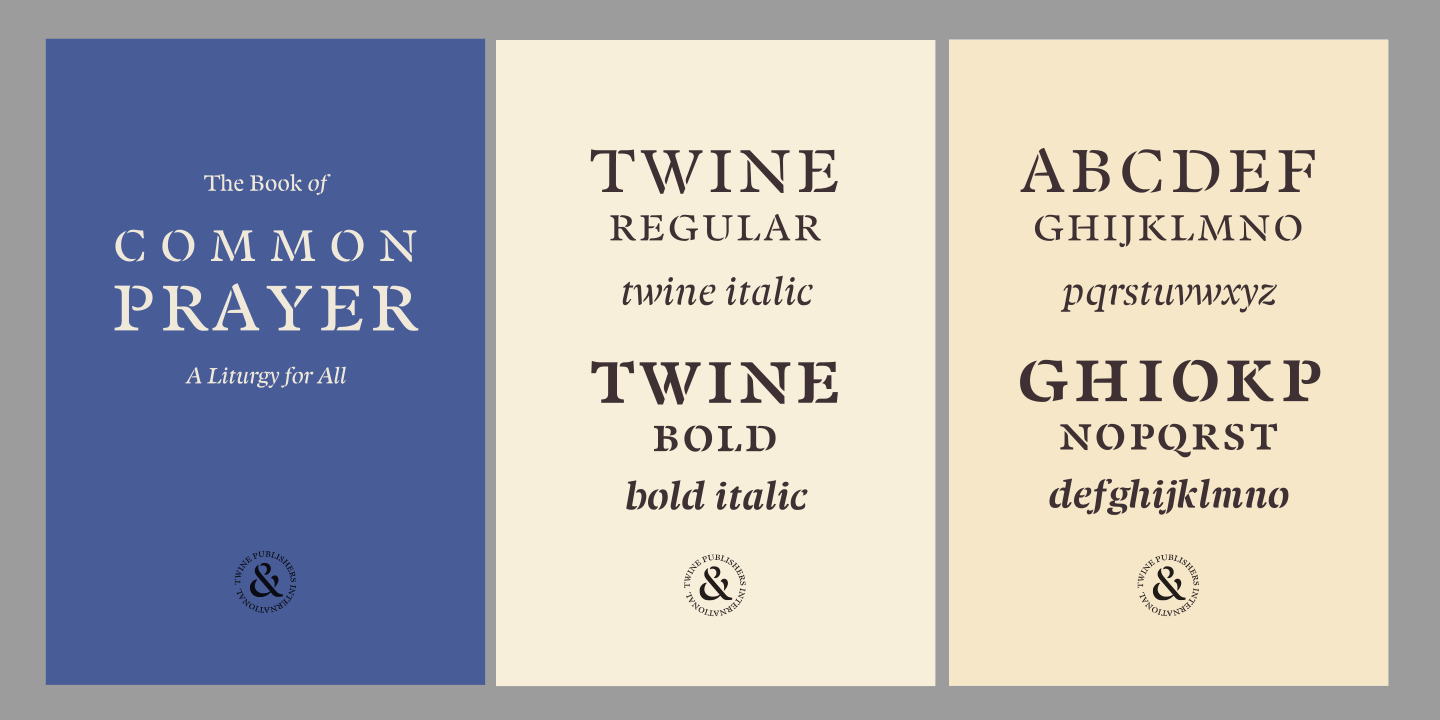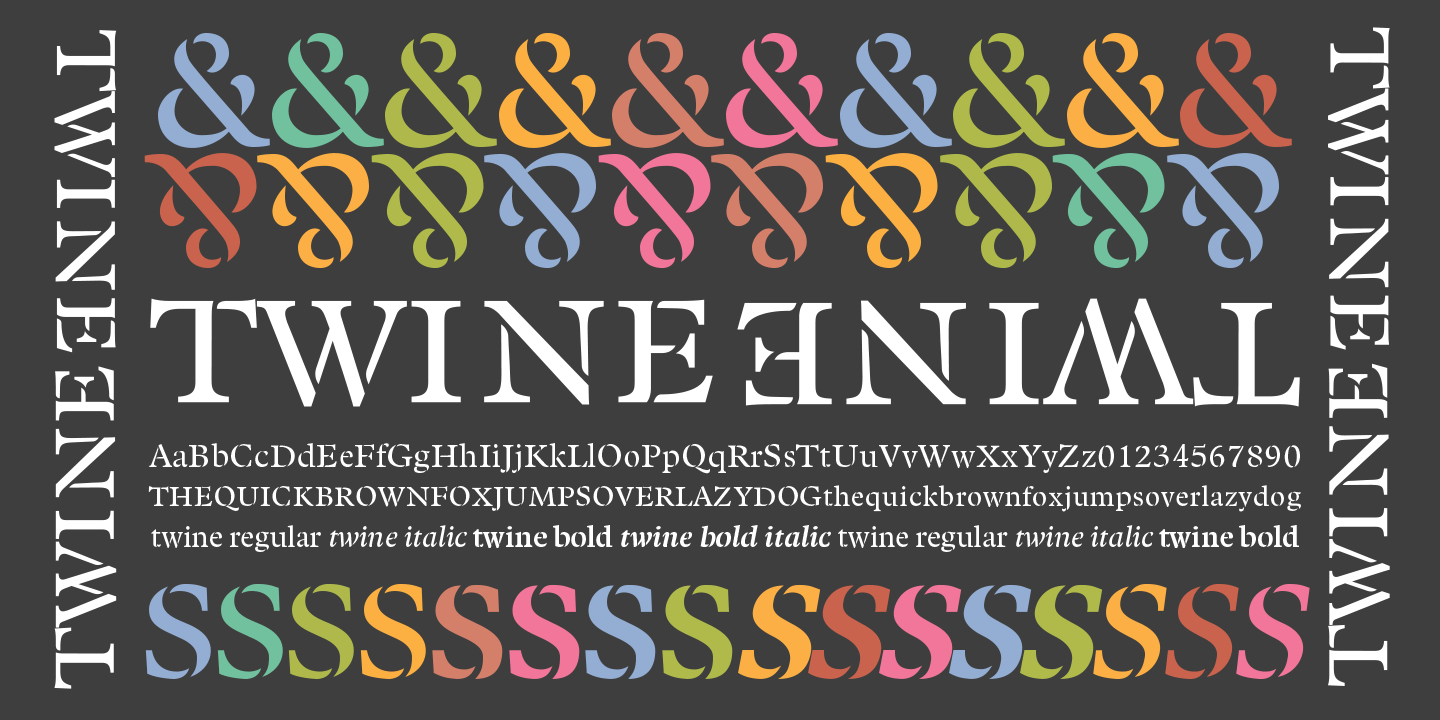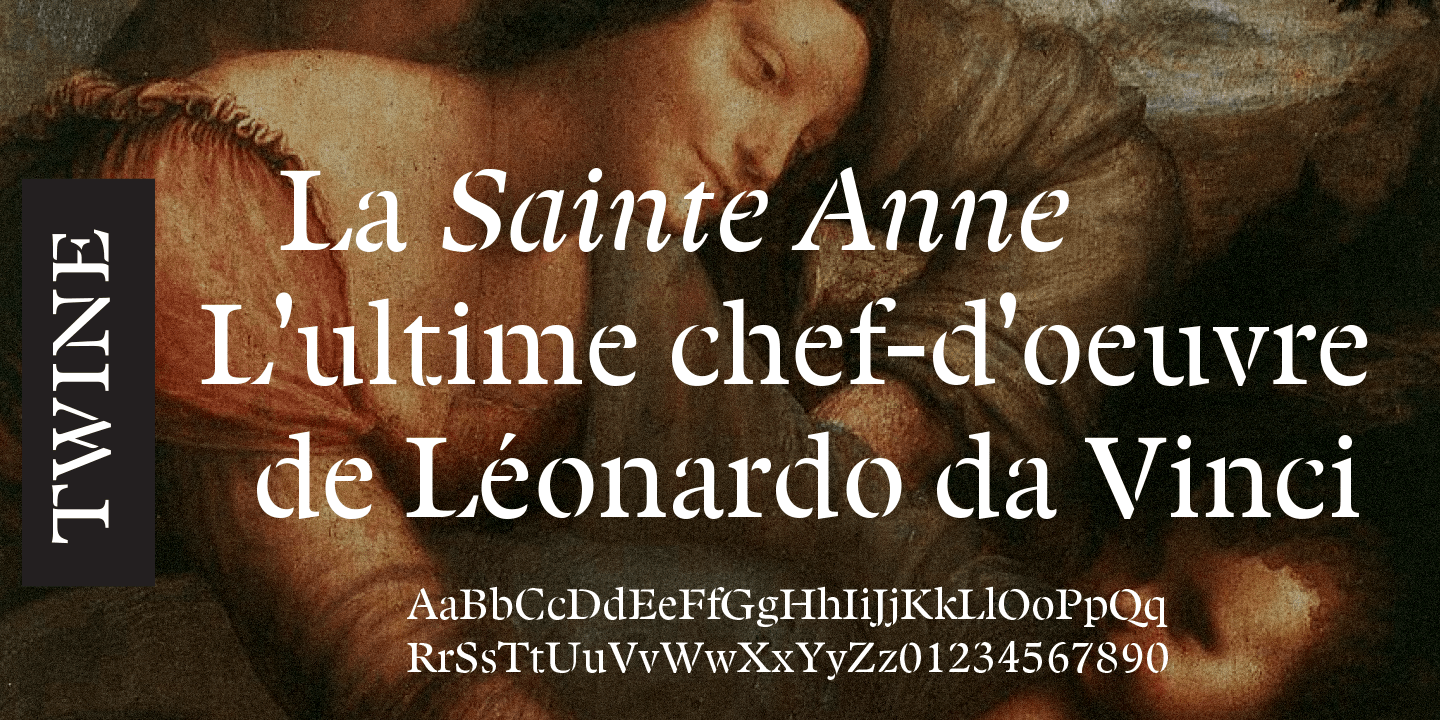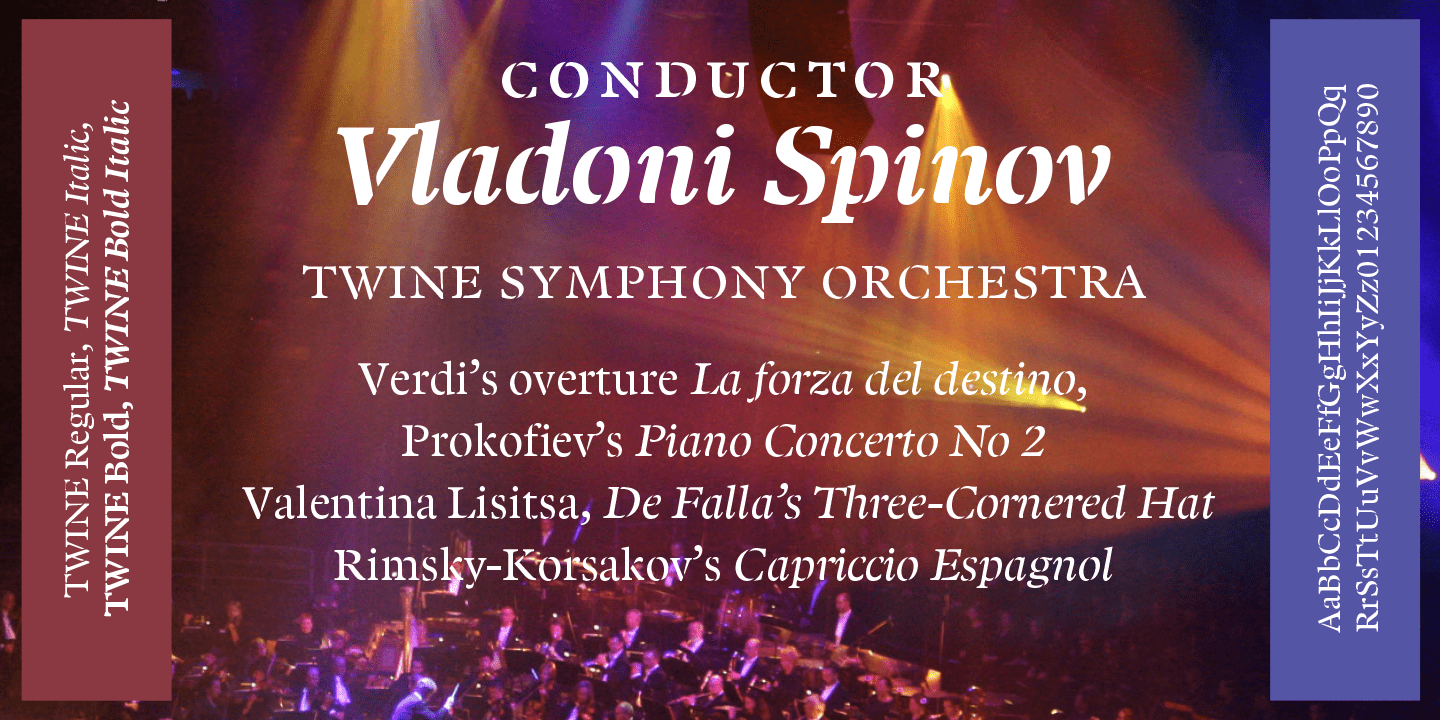
About Twine
By twisting and weaving separate strands of rope together, a stronger TWINE is created. The distinctive ?valleys? that give the twine its twisted and wavy appearance is the result of the twining process. Similarly, TWINE the font, is an exaggerated representation…